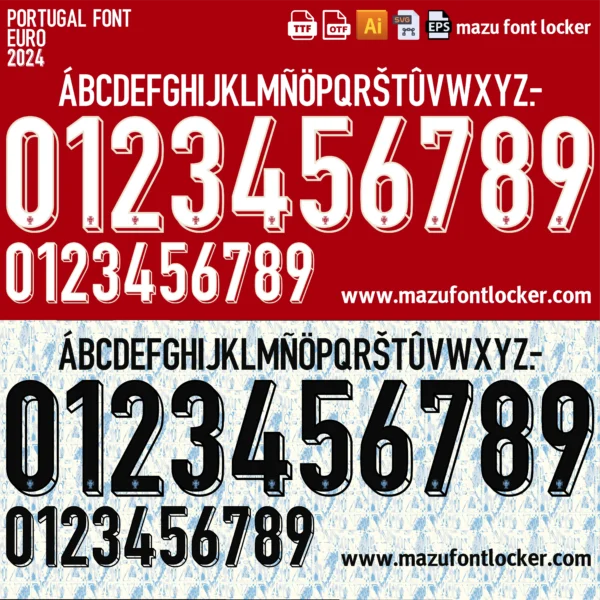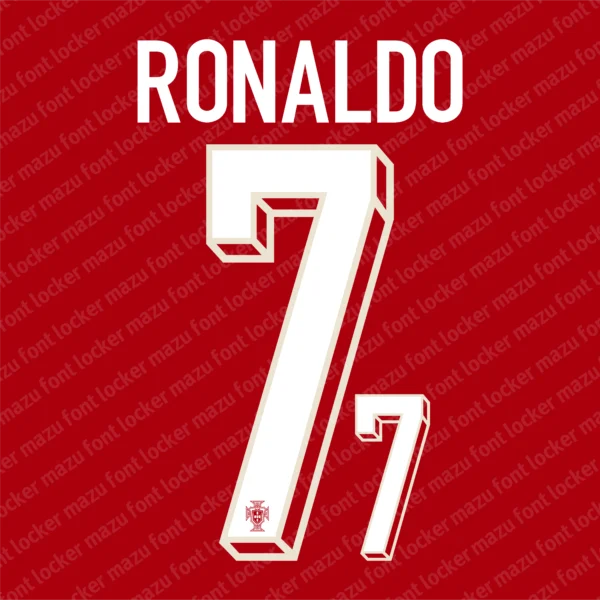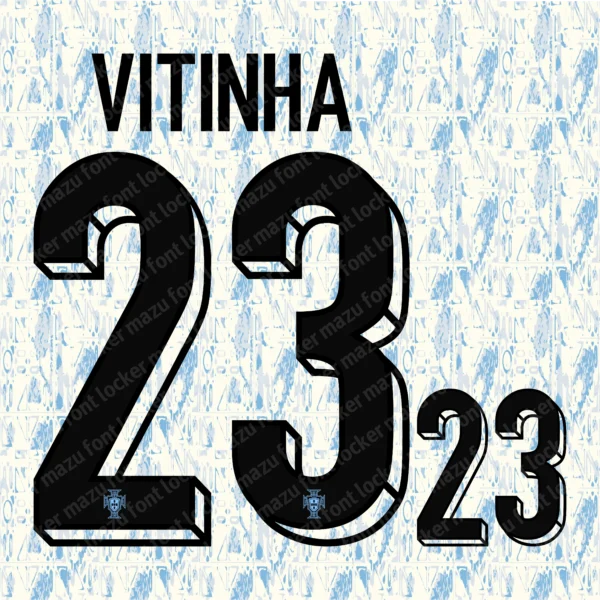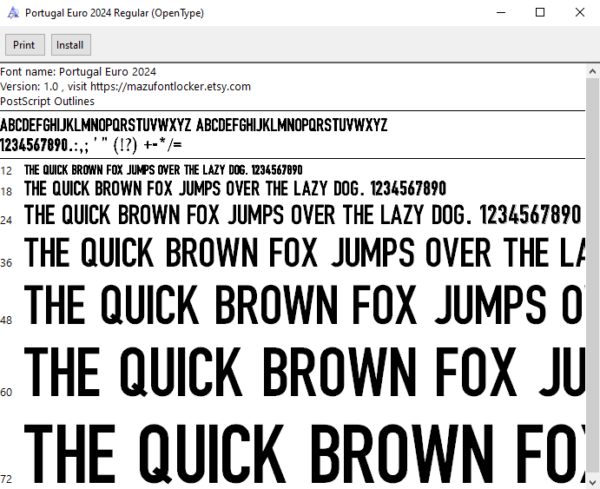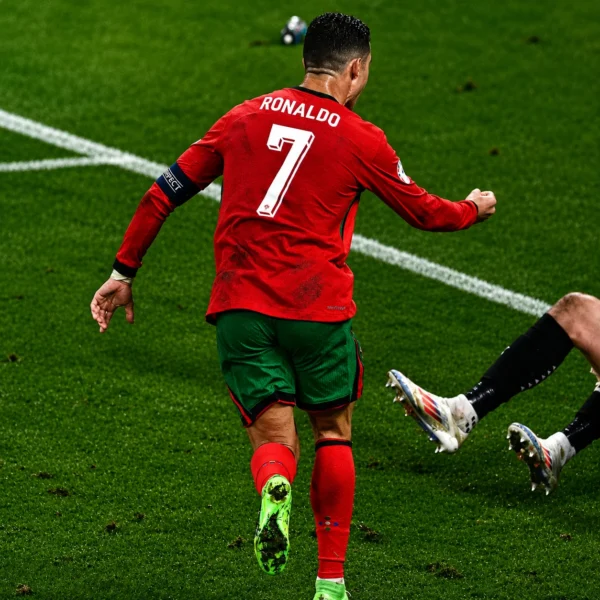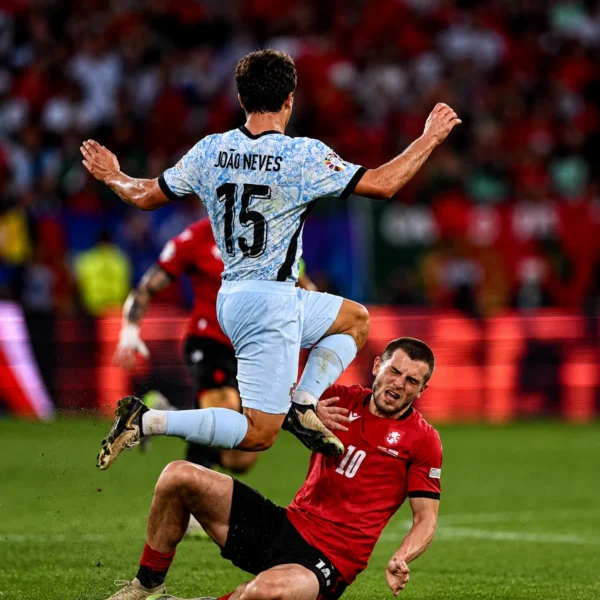
Portugal Euro 2024 Font Vector – Spectacular Iconic CR7 Edition
Download the Portugal Euro 2024 Font Vector (AI, EPS, SVG, PDF, OTF, TTF) and unleash the bold, passionate, and heroic match typography from Portugal’s Euro 2024 campaign. This font captures the iconic Red & Green lettering that roared across Germany.
Channeling the proud Seleção spirit and fighting Portuguese soul, it features the commanding style worn by legends like Cristiano Ronaldo, Bruno Fernandes, Bernardo Silva, Pepe, and Rúben Dias. Perfect for premium jersey mockups, football designs, and passionate Portugal art.
Portugal Euro 2024 Font Vector – Quinas Typeface
The Portugal Euro 2024 Font Vector is a premium typeface that faithfully recreates the distinctive lettering from the Portuguese National Team’s official Euro 2024 kit. This vector font kit captures the bold, modern, and proud typography worn by the Seleção during their impressive run to the final.
Why Choose Portugal Euro 2024 Font Vector
This font set is prized for its precision and attention to detail. Every glyph has been meticulously recreated to match the official typography used on Portugal’s Euro 2024 home and away kits.
The letterforms are bold, modern, and slightly condensed with clean, sharp edges — delivering the iconic Portuguese red and green aesthetic with excellent readability for both large back numbers and intricate design work.
The numerals feature athletic proportions, strong contours, and balanced weight, making them perfect for replicating player names and squad numbers on the Euro 2024 tournament kits.
- Full uppercase A–Z and numbers 0–9 in the official Euro 2024 style
- Special FPF crest glyph for authentic number detailing
- Multilingual Latin support with diacritics
- Includes precise crest placement used under player numbers on the official kit
Portugal Euro 2024 Campaign
Portugal delivered a memorable performance at UEFA Euro 2024 in Germany. Under the management of Roberto Martínez, the Seleção reached the final of the tournament, showcasing a strong blend of experienced veterans and young talents. Captain Cristiano Ronaldo continued to make history, while players like Bruno Fernandes, Bernardo Silva, and Diogo Costa played key roles throughout the campaign.
Although they finished as runners-up after a hard-fought final against Spain, Portugal’s journey reinforced their status as one of Europe’s elite teams. The striking red home kit with subtle modern details became a symbol of national pride and resilience. This font kit pays tribute to that competitive spirit and the unforgettable moments of Euro 2024.
The Portugal Euro 2024 Font Vector is an independently developed typeface package. It has been carefully crafted to replicate the official lettering from the Euro 2024 tournament kits. Ideal for artistic projects, fan creations, and football design enthusiasts.